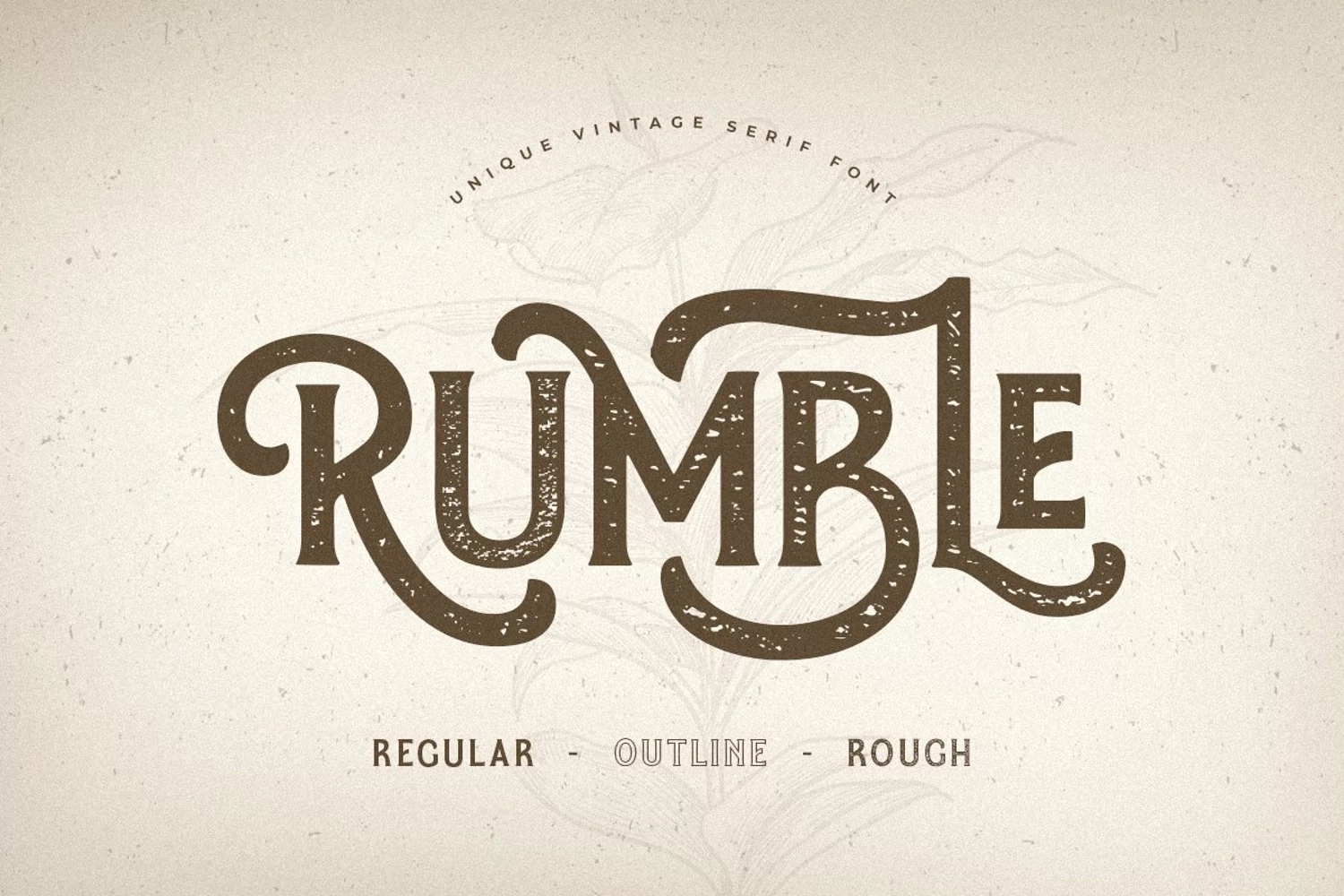
Rumble - Unique Vintage Serif Font, a well-balanced contemporary font with a fancy, unique, and versatile vintage serif font that you can combine to get any variations and unique shapes easily just in seconds with stack it. It is a serif display font with moderate contrast that perfect for branding projects, logo, wedding designs, social media posts, advertisements, product packaging, product designs, label, photography, watermark, invitation, stationery, and any projects, it makes with a high level of legibility.